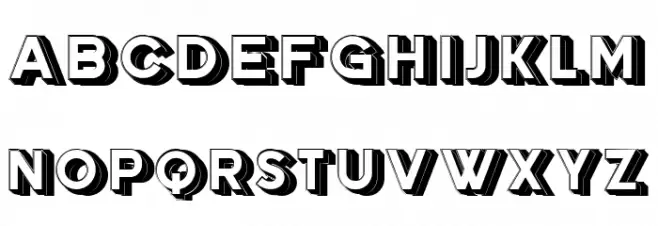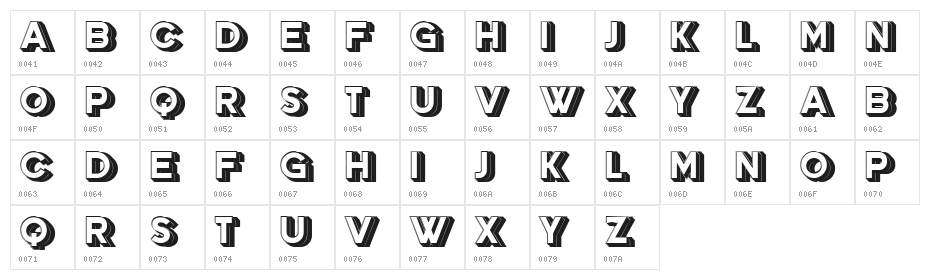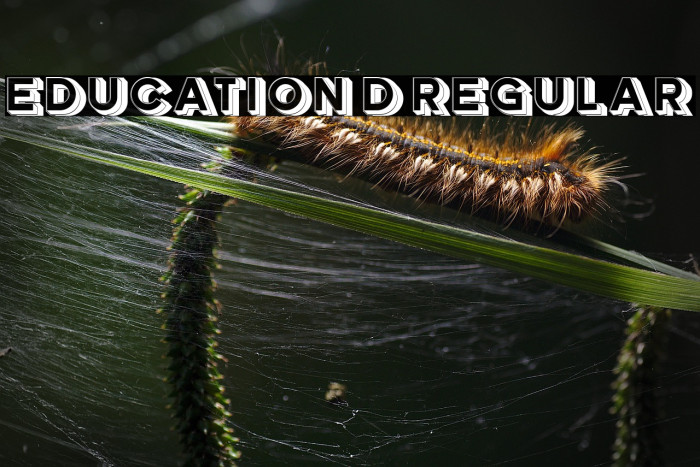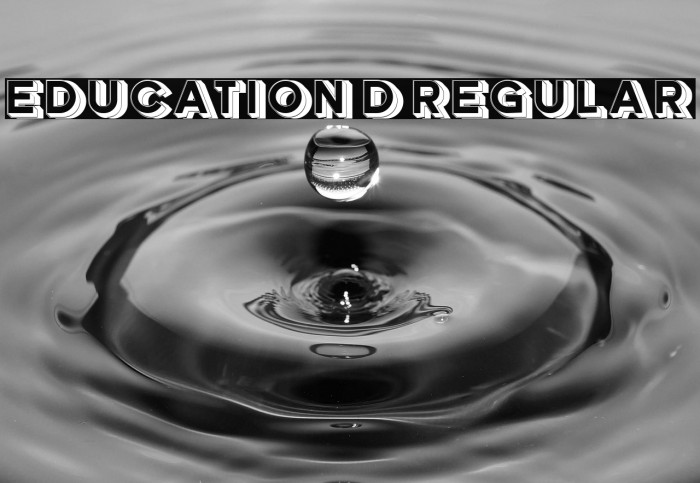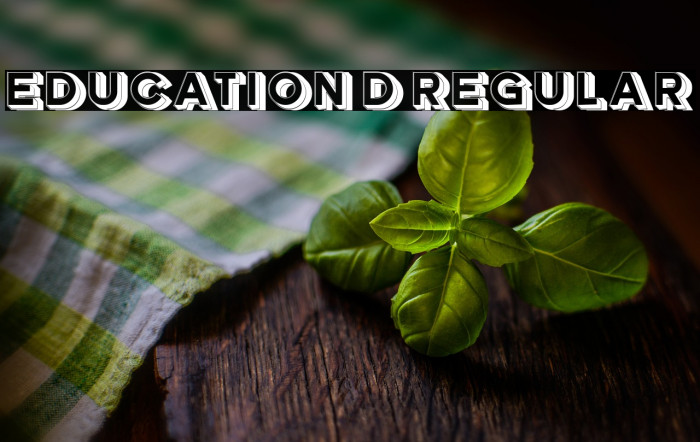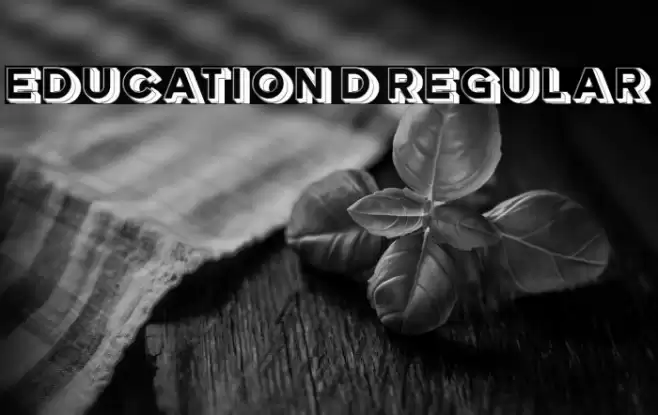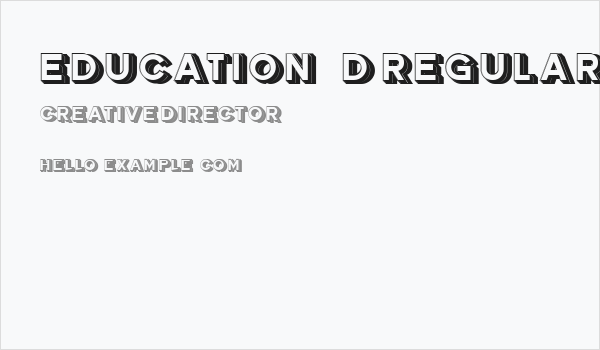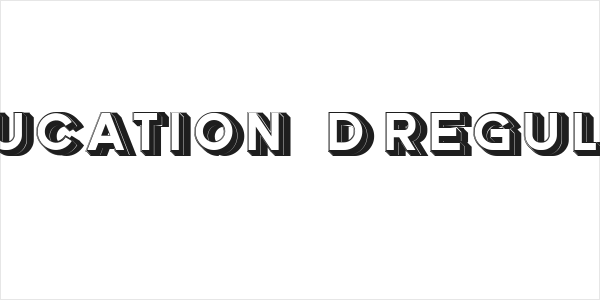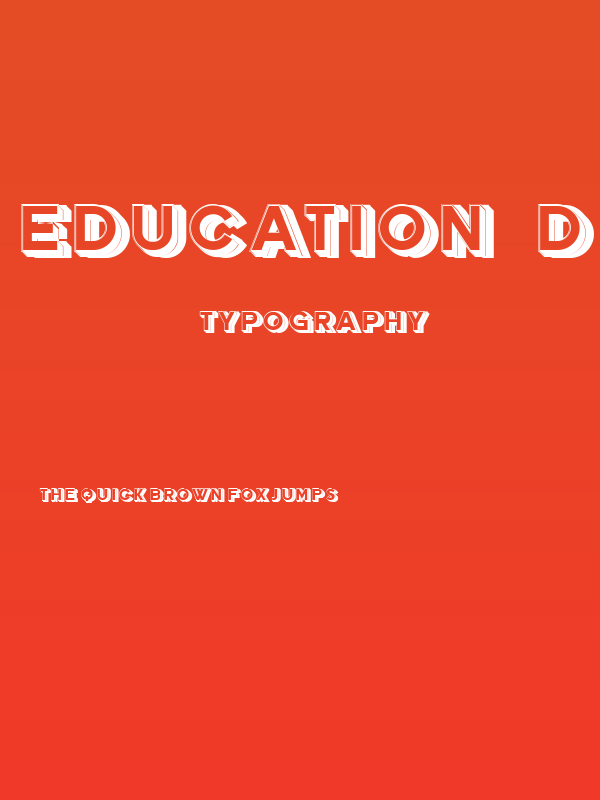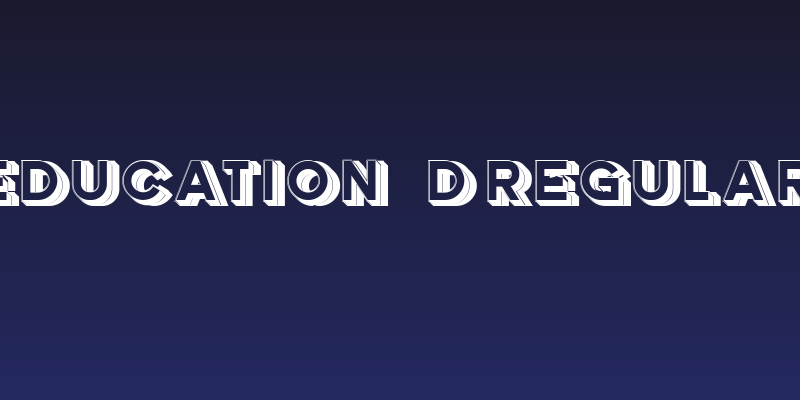
Education 3D Regular Font
Education 3D Regular Description
This font features a bold, three-dimensional style that gives each character a striking, shadowed appearance. The letters are uppercase and have a strong, geometric structure with clean lines and sharp angles. The 3D effect is achieved through a combination of solid fills and shadowing, creating a sense of depth and dimension. This design is both modern and playful, making it suitable for eye-catching displays. The font's boldness and unique style make it stand out, perfect for projects that require a strong visual impact.
| Proposed Projects | Ideal for posters, headlines, branding, and any design requiring a bold, eye-catching font. |